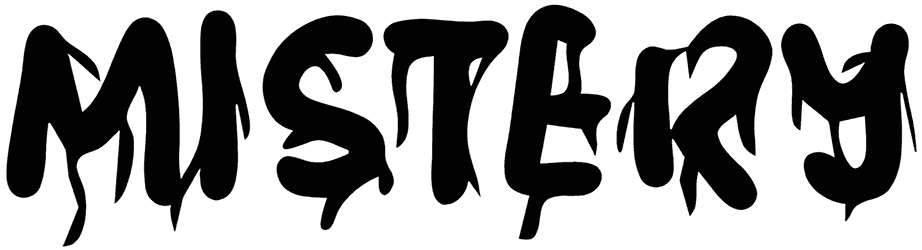
Mistery Font
Mistery, a blemish font with both amusing and frightening vibes, is useful for making a poster, a Halloween flyer, a card, or even a t-shirt. This Halloween font will make your project stand out, even though it has no lo…
Mistery, a blemish font with both amusing and frightening vibes, is useful for making a poster, a Halloween flyer, a card, or even a t-shirt. This Halloween font will make your project stand out, even though it has no lowercase letters.